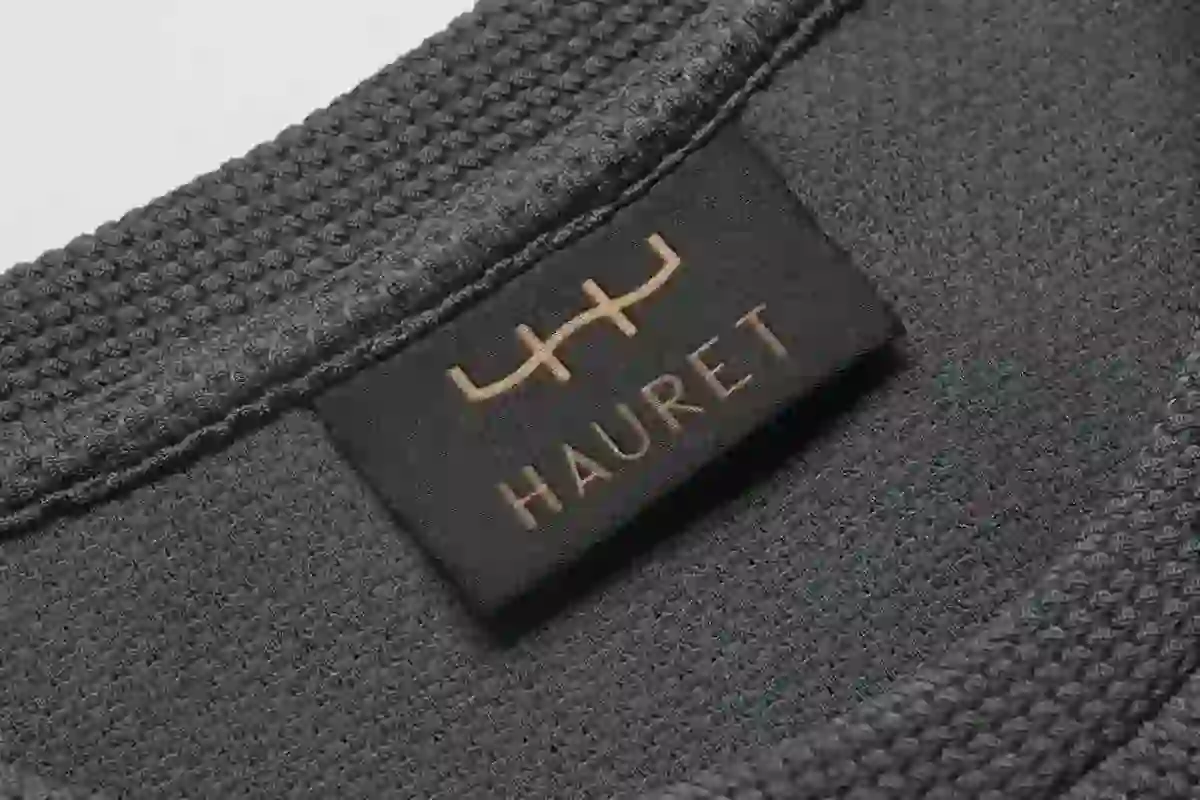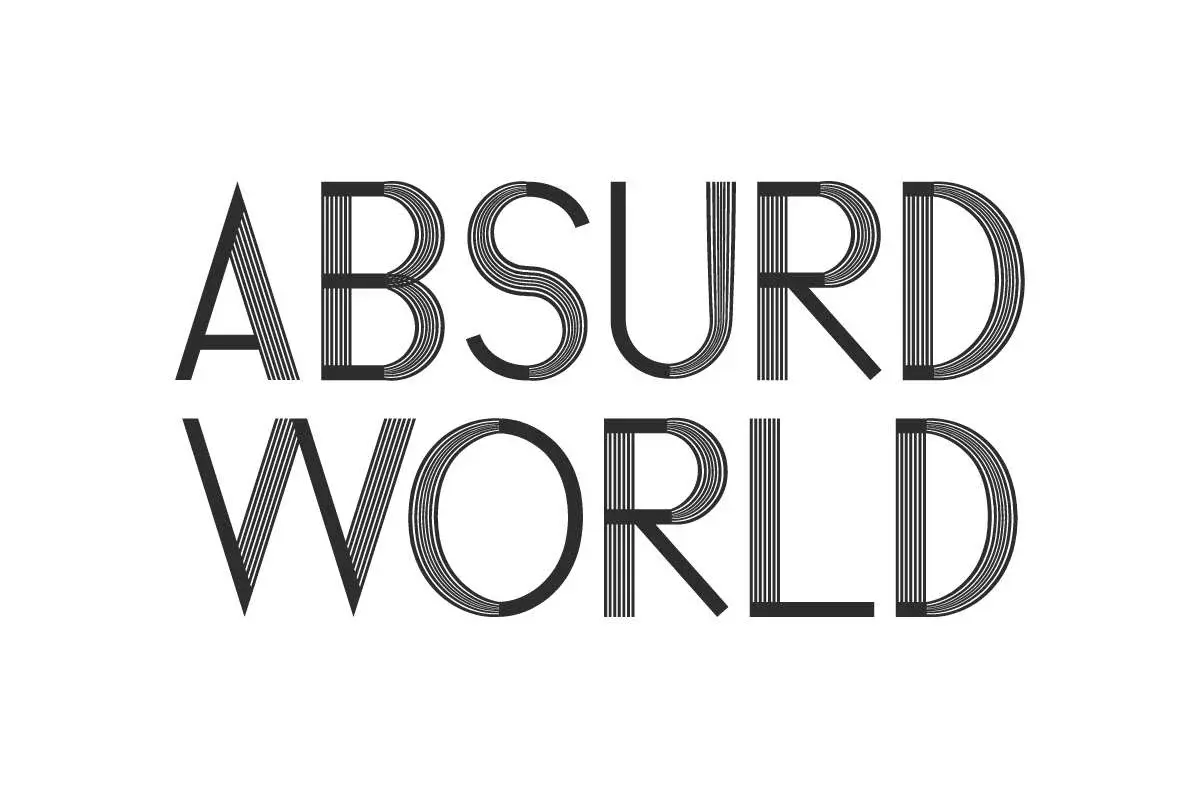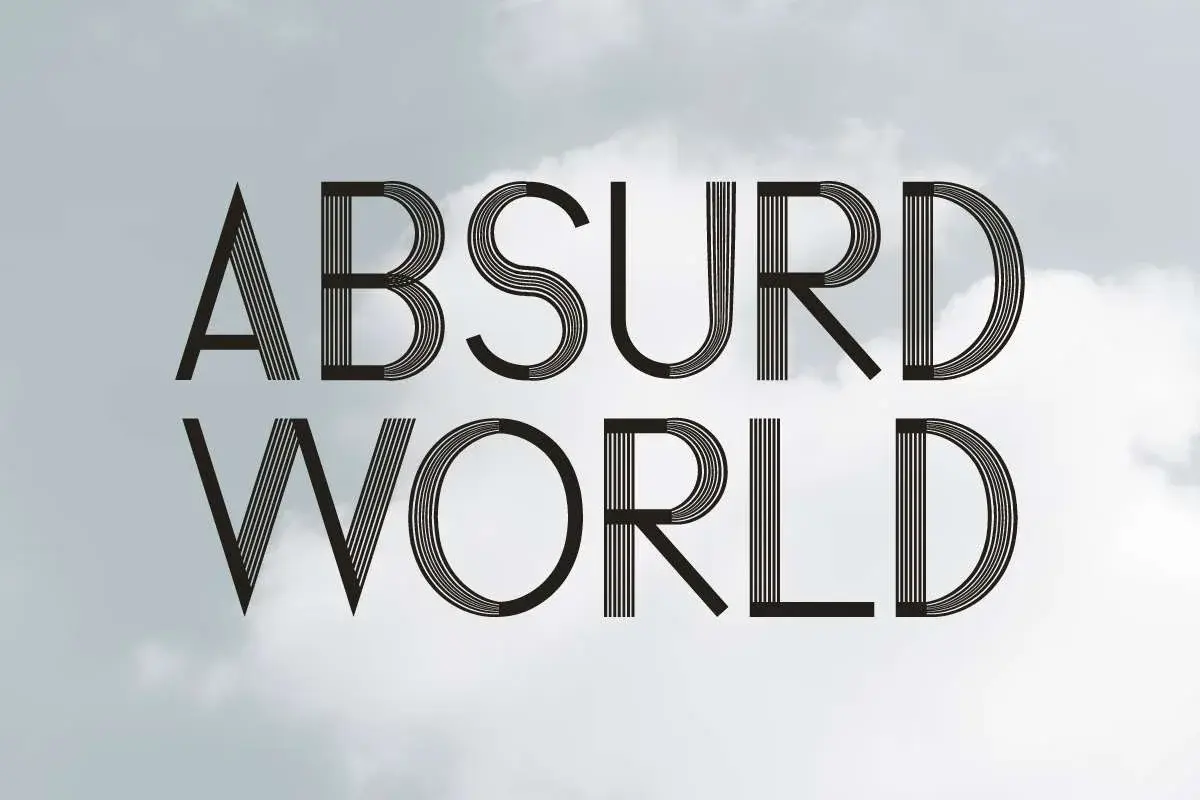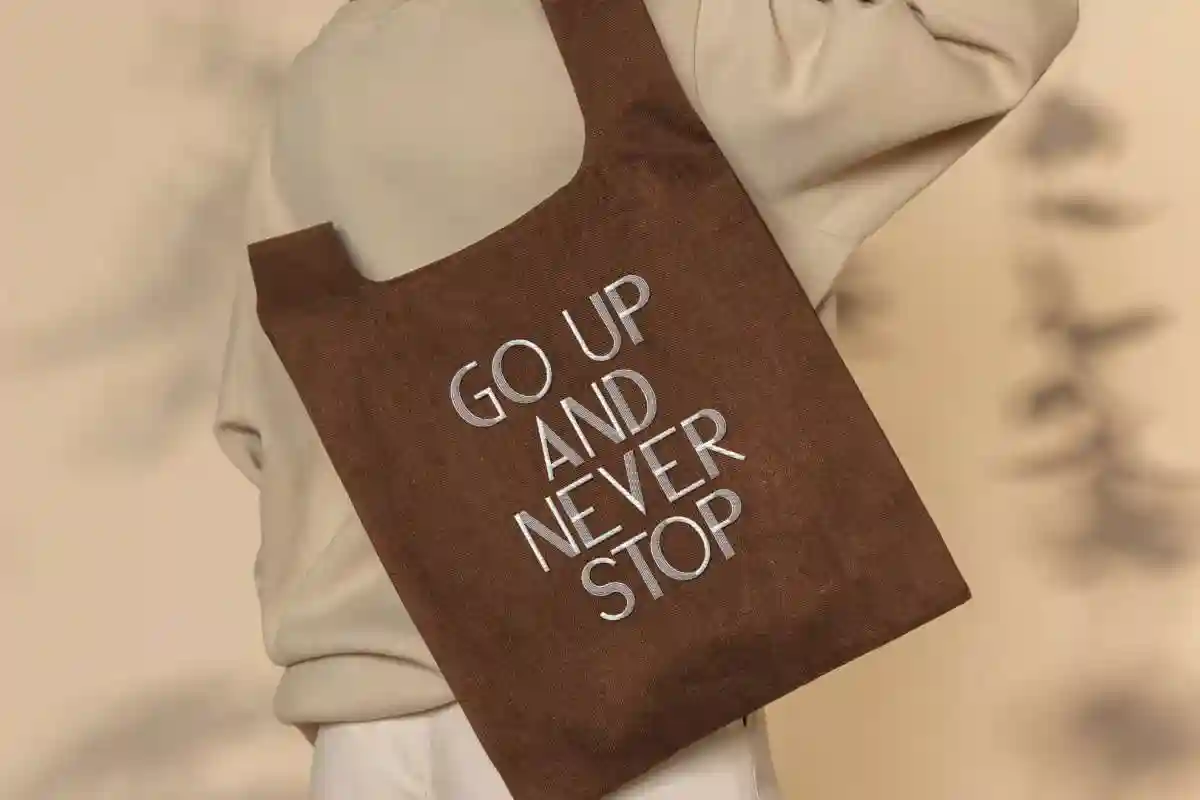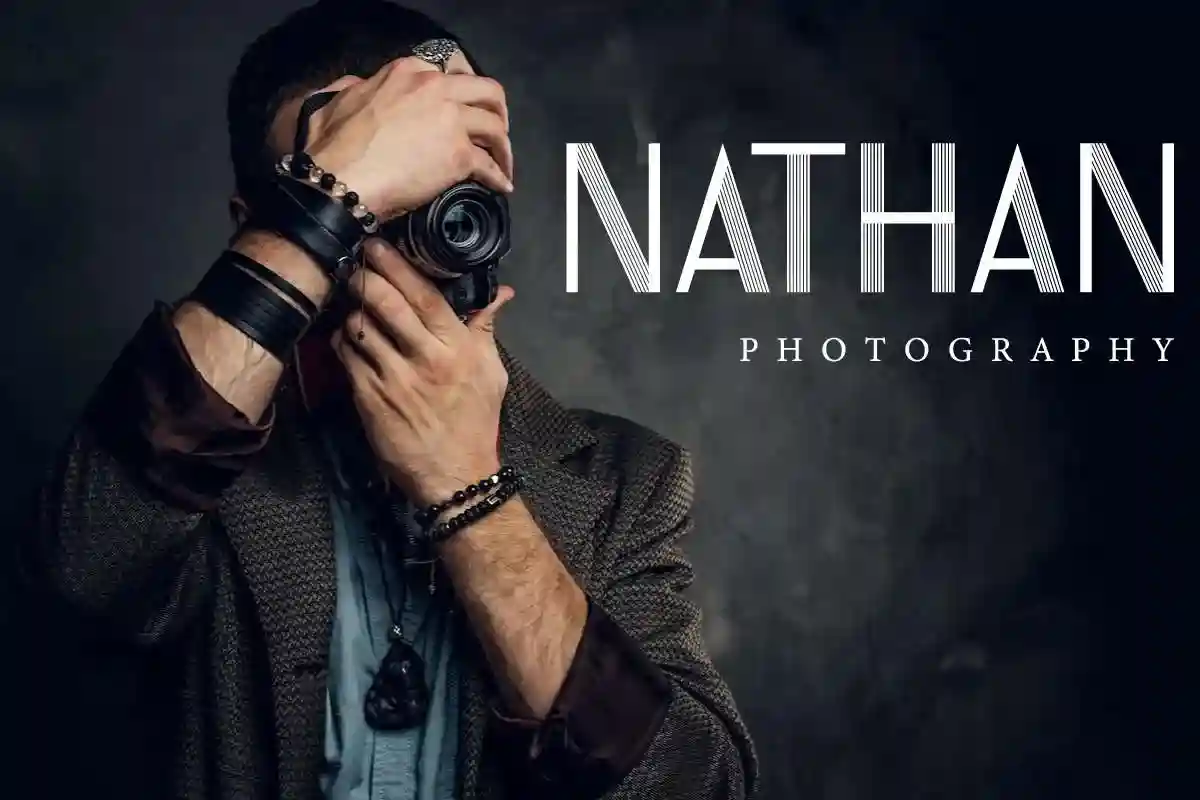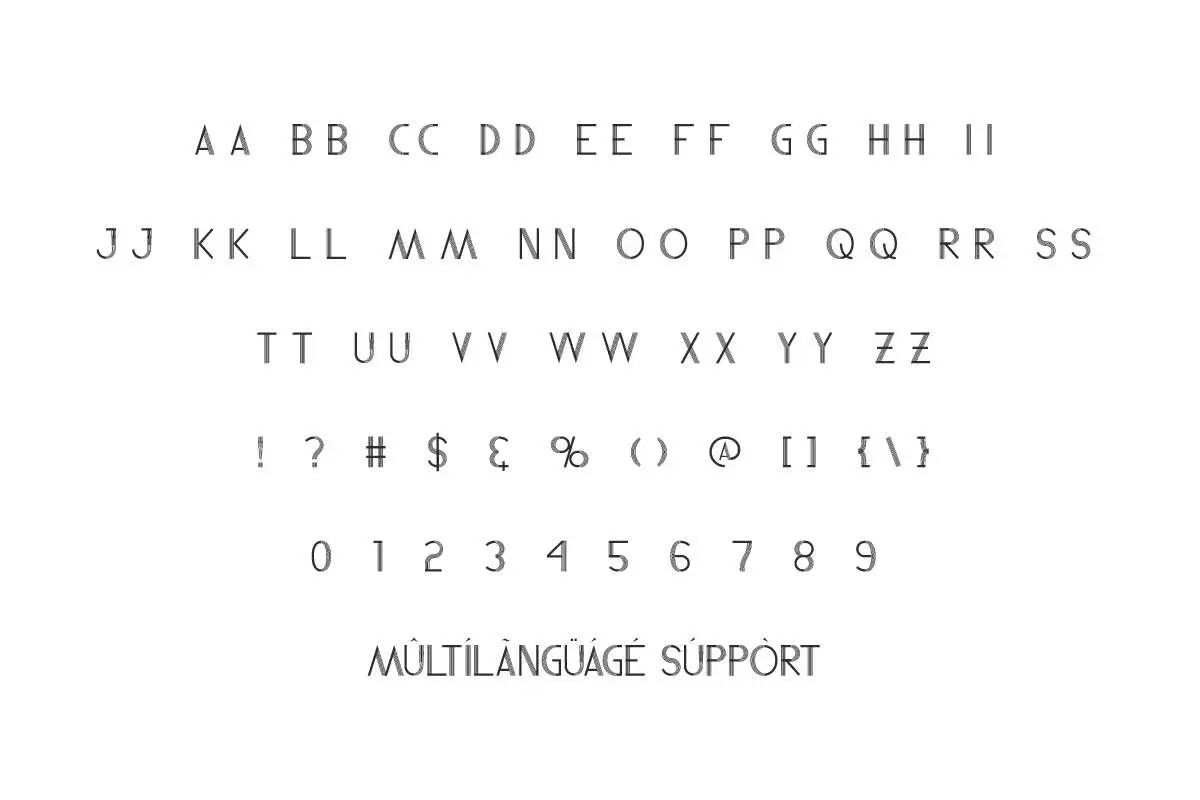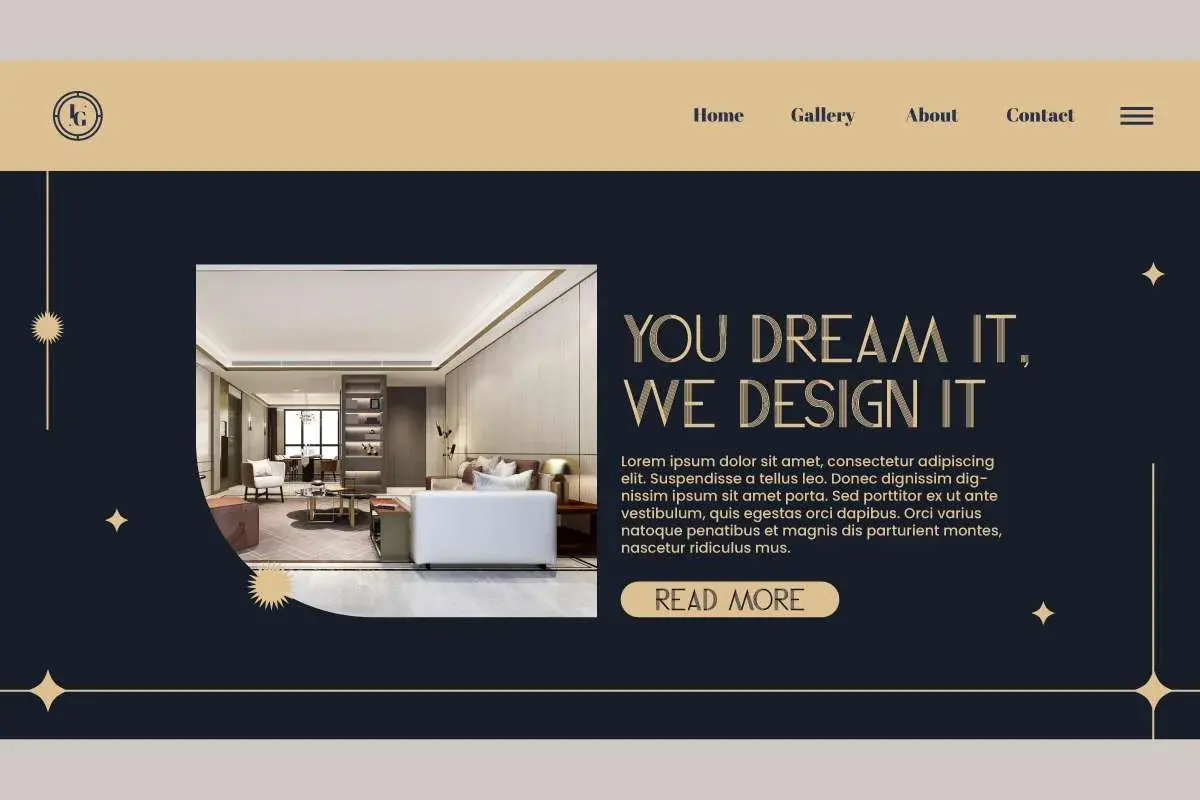
Absurd World Font is an attractive abstract modern display font. It will be perfect for handmade tote bag, photography, etc.
Absurd World Font is an abstract modern display font with a unique shape. This typeface has its own characteristics, some stripes unite and attach to the corners of solid letters. There are also letters that have a sharp shape that makes them stand out. It will be perfect for your project, such as billboard, brand logo, business card, cover, label, packaging design, poster, screen print, signage, stationery, sticker, title, website, etc.
Absurd World Font includes full set of ALL CAPS for both Uppercase and Lowercase Basic Characters, Number, Punctuation, Symbol. Use this for your business industry such as bakeries and pastries, clothing brand, furniture, handicrafts, handmade tote bag, menswear, photography, printing, publishing, restaurant, sport, etc.